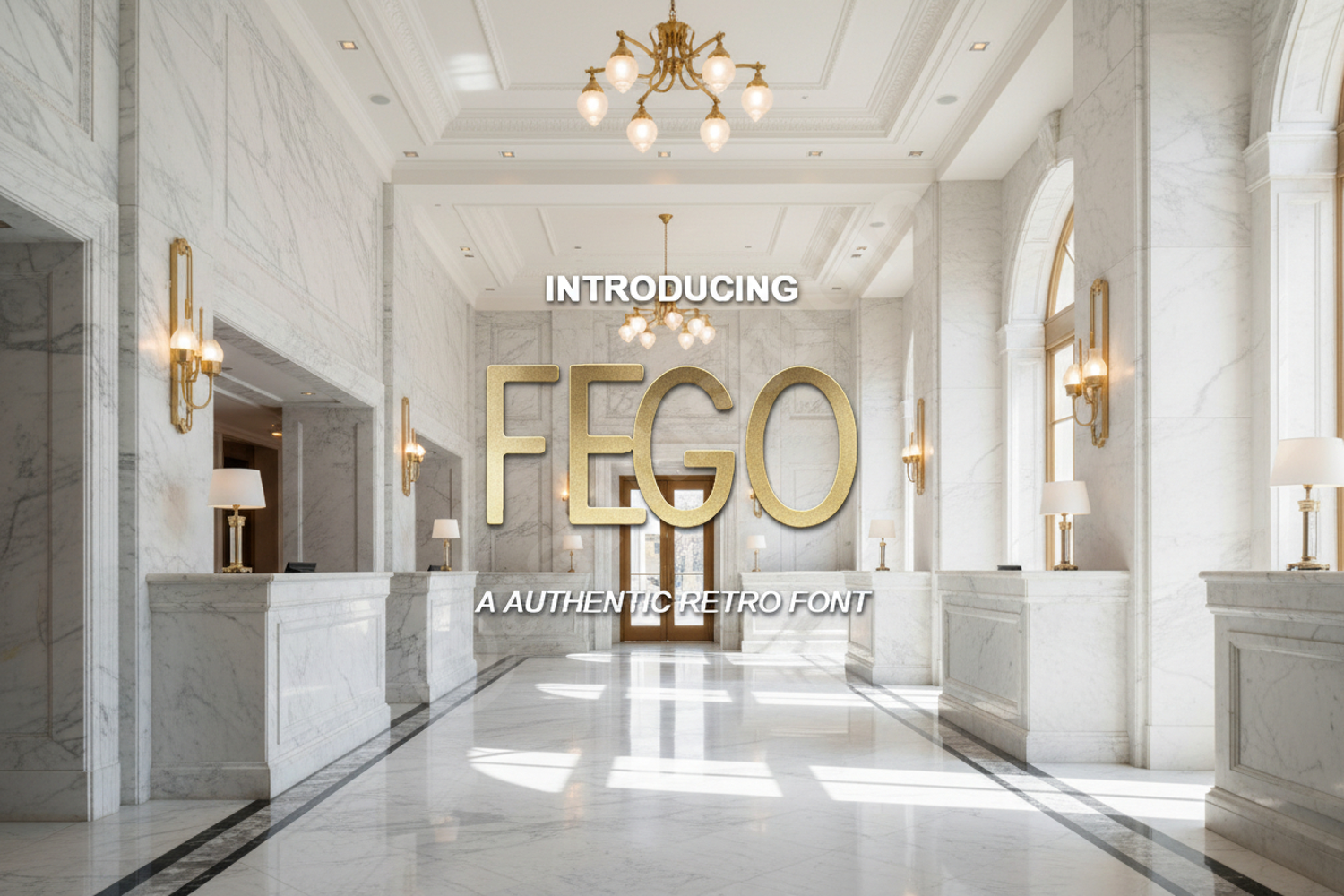
Fego - Modern Minimalist Sans Serif
Fego
Elevate your design projects with Fego, a premium sans-serif font that embodies modern minimalism and professional elegance. Crafted with precision, Fego features clean lines and balanced proportions that ensure maximum legibility across both digital and print mediums. Whether you are building a high-end brand identity or a sleek user interface, Fego provides the sophisticated touch your work deserves.
- Full set of uppercase and lowercase letters
- Comprehensive numbers and punctuation
- Multilingual support for global accessibility
- Branding and Identity: Create memorable logos and cohesive brand guidelines.
- Editorial Design: Perfect for high-end magazine layouts and bold headlines.
- Web Design: Achieve clean aesthetics for headers and navigational text.
- Wedding Stationery: Modern invitations with a refined, contemporary feel.
- Social Media: Stand out with crisp, readable typography on any digital platform.